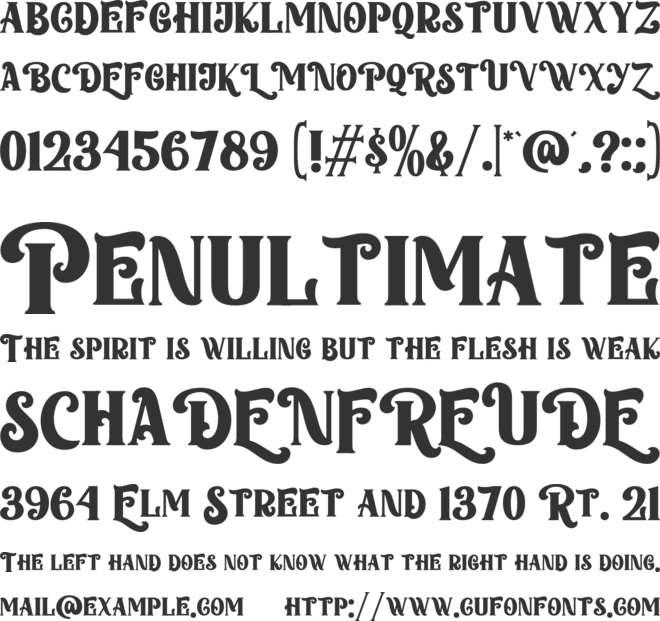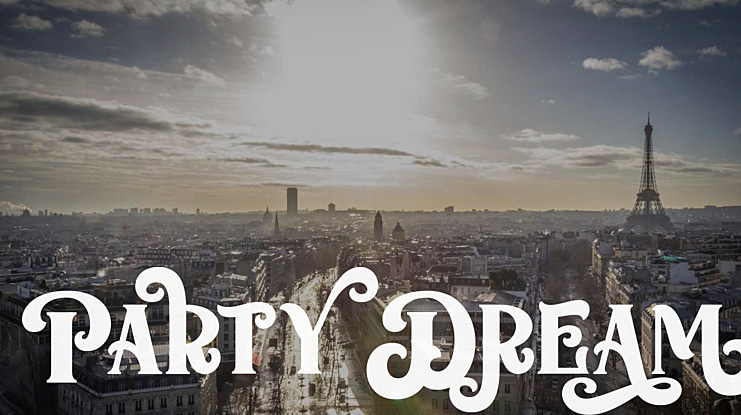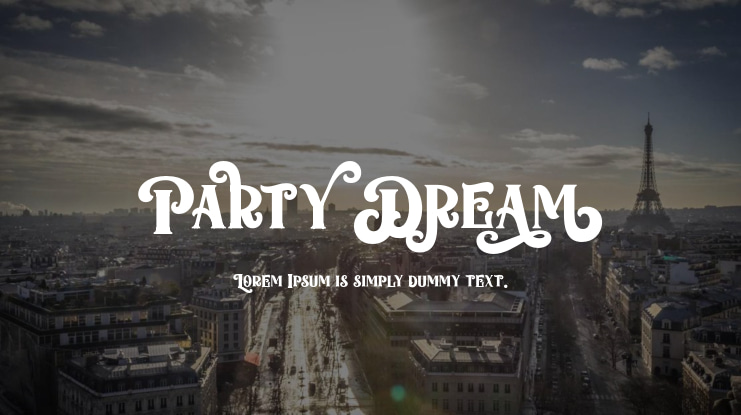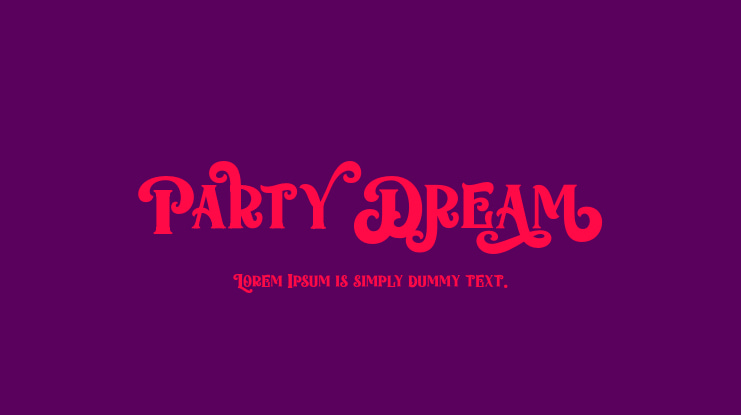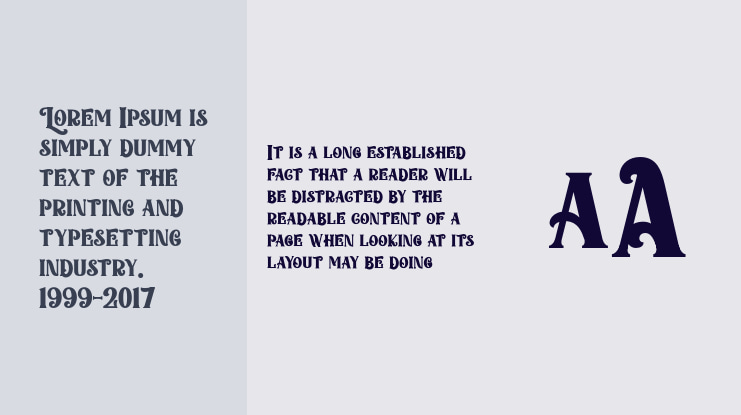
Party Dream Font
Party Dream is a festive and incredibly classy display font. It is ideal for any of your winter break creations so add it to your designs and bring them to life! It will elevate a wide range of design projects to the highest level, be it branding, headings, wedding designs, invitations, signatures, logos, labels, and much more!